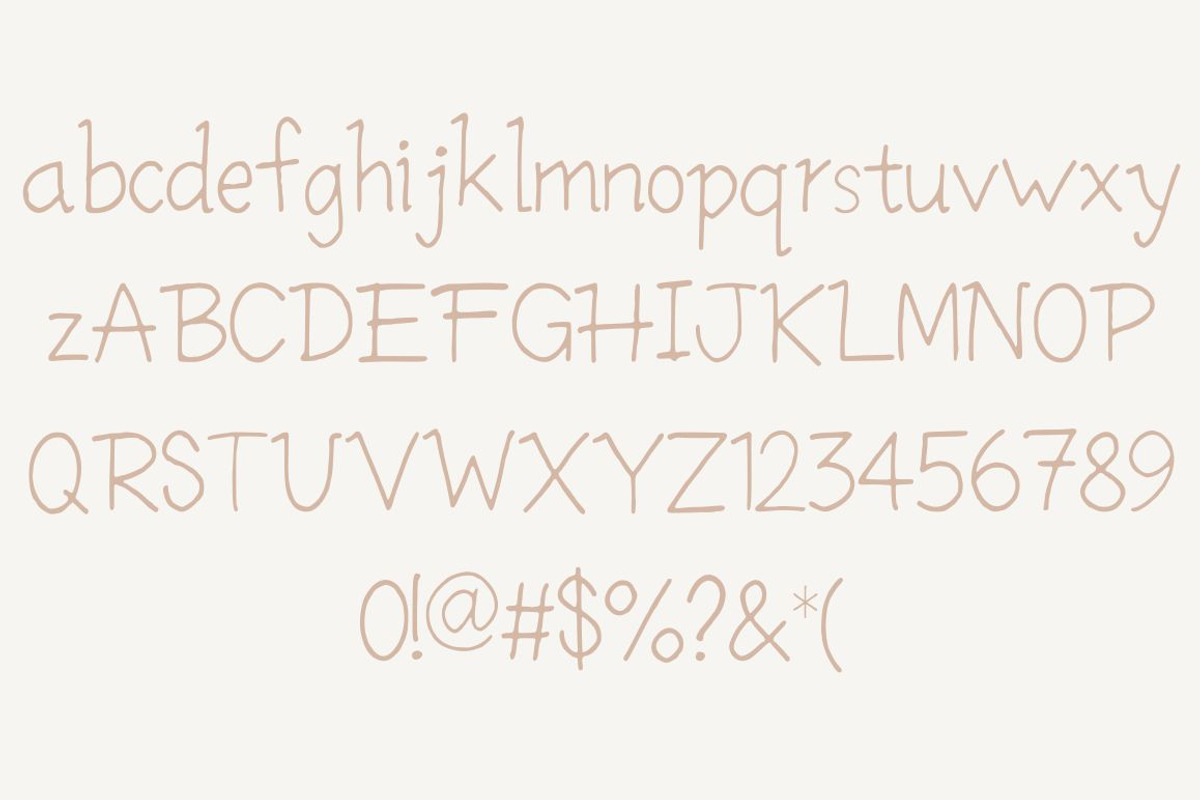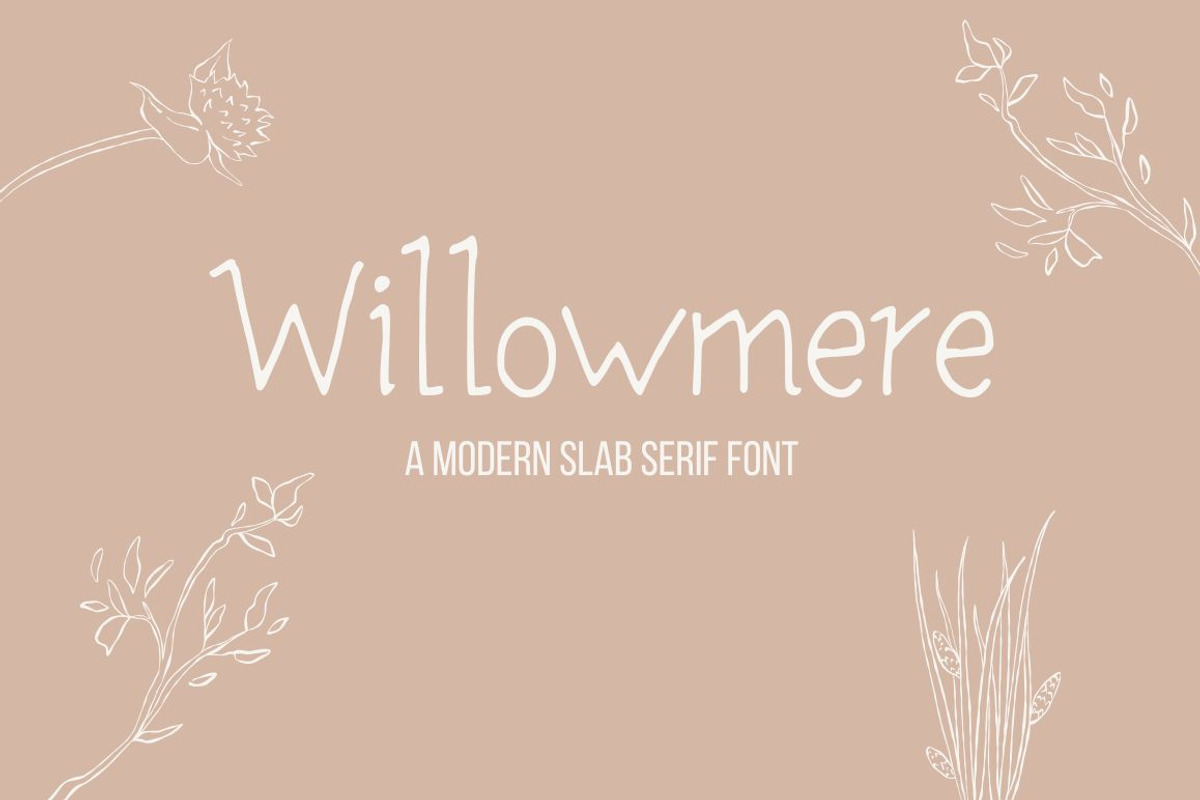
Willowmere Slab Serif
Willowmere is a graceful slab serif font with flowing ligatures that blend strength and elegance. Its sturdy letterforms are softened by delicate curves, evoking the timeless beauty of handwritten script while maintaining a bold, structured presence. Perfect for branding, editorial design, and anything that calls for a touch of rustic sophistication.